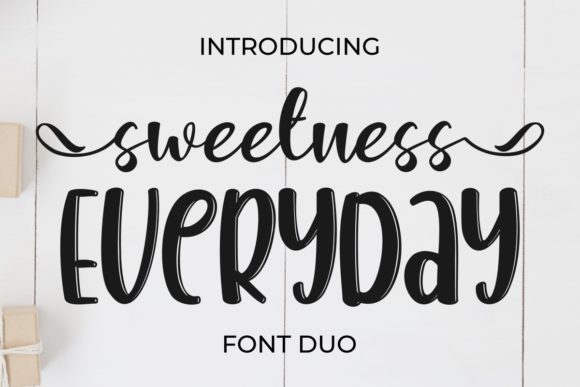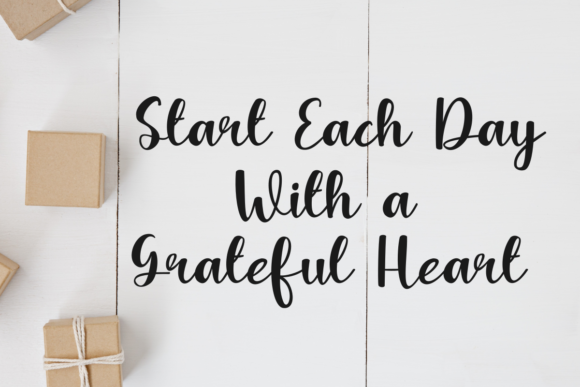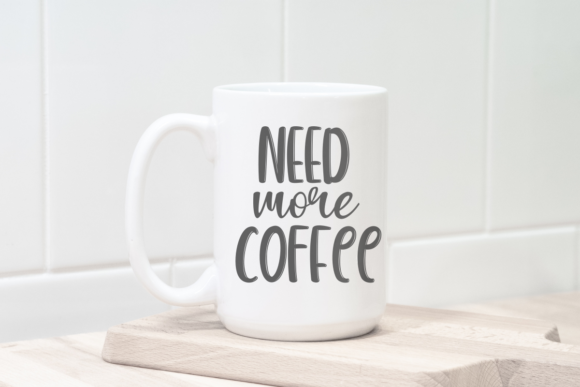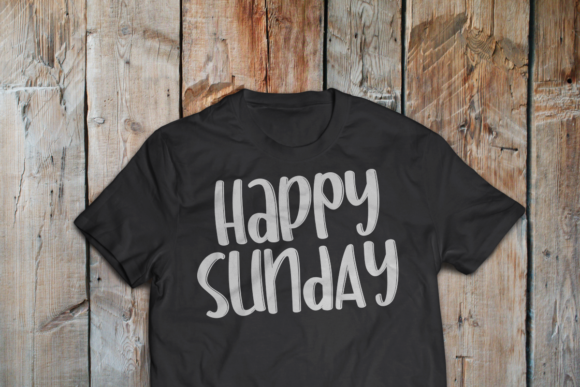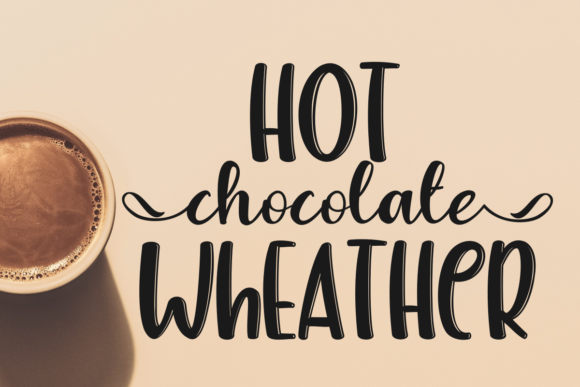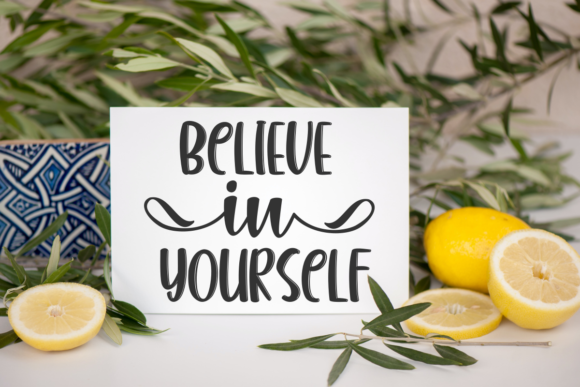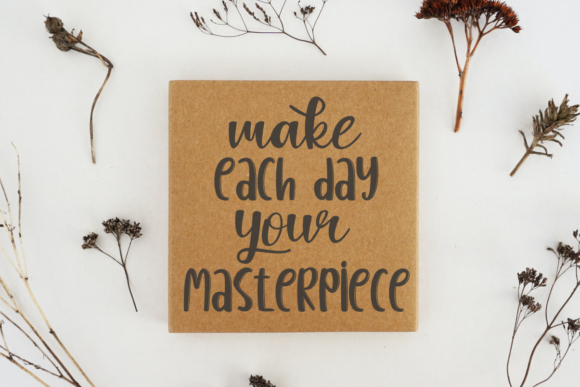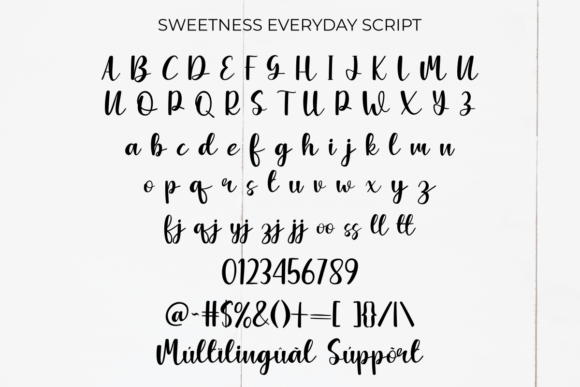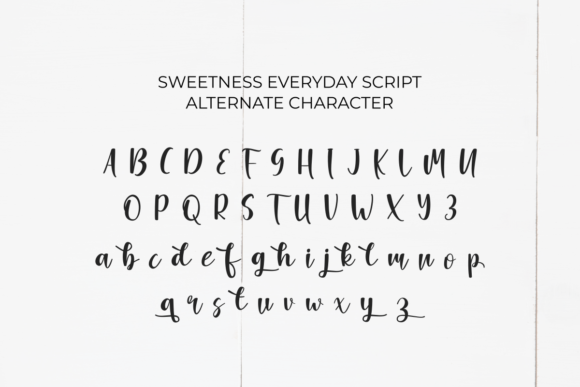
Sweetness Everyday Duo consists of two fonts designed to complement each other perfectly. Together or apart, these fonts are ideal for adding a chic and cheery touch to your crafts. This font is PUA encoded which means you can access all glyphs and swashes with ease!
Sweetness Everyday Duo Font